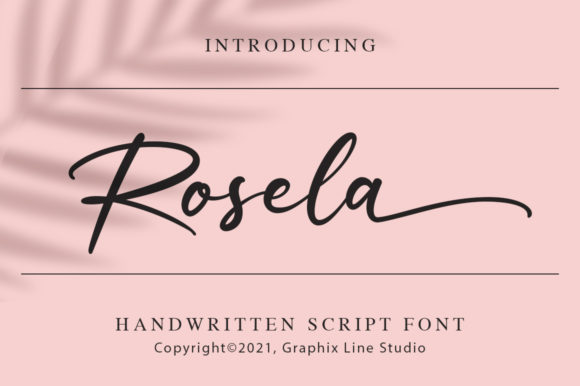
Welcome to the world of Rosela Font, a captivating script font family that will transform your designs into enchanting masterpieces. This carefully crafted font embodies grace, elegance, and timeless beauty, making it the perfect choice for calligraphers, designers, and creative visionaries alike.
With its smooth curves, delicate strokes, and balanced proportions, Rosela Font adds a touch of sophistication and allure to any project. Its versatility extends from elegant fashion branding to captivating editorial designs, ensuring your creations stand out from the crowd.
Immerse yourself in a world where words come alive, where every letter dances across the page with a unique charm. Rosela Font's PUA encoding grants you effortless access to a treasure trove of glyphs and swashes, empowering you to unleash your creativity and add intricate details that captivate the senses.
Elevate your designs to new heights with Rosela Font. Its enchanting presence will leave an unforgettable impression, captivating audiences and leaving them yearning for more. Let your imagination soar as you craft breathtaking logos, enchanting invitations, soul-stirring quotes, and social media posts that resonate with your audience.
Join the ranks of creative pioneers who have embraced Rosela Font's allure. Experience the joy of creating designs that evoke emotion, convey messages with impact, and leave a lasting legacy. Step into the realm where beauty and functionality intertwine, and let Rosela Font guide you towards design excellence.